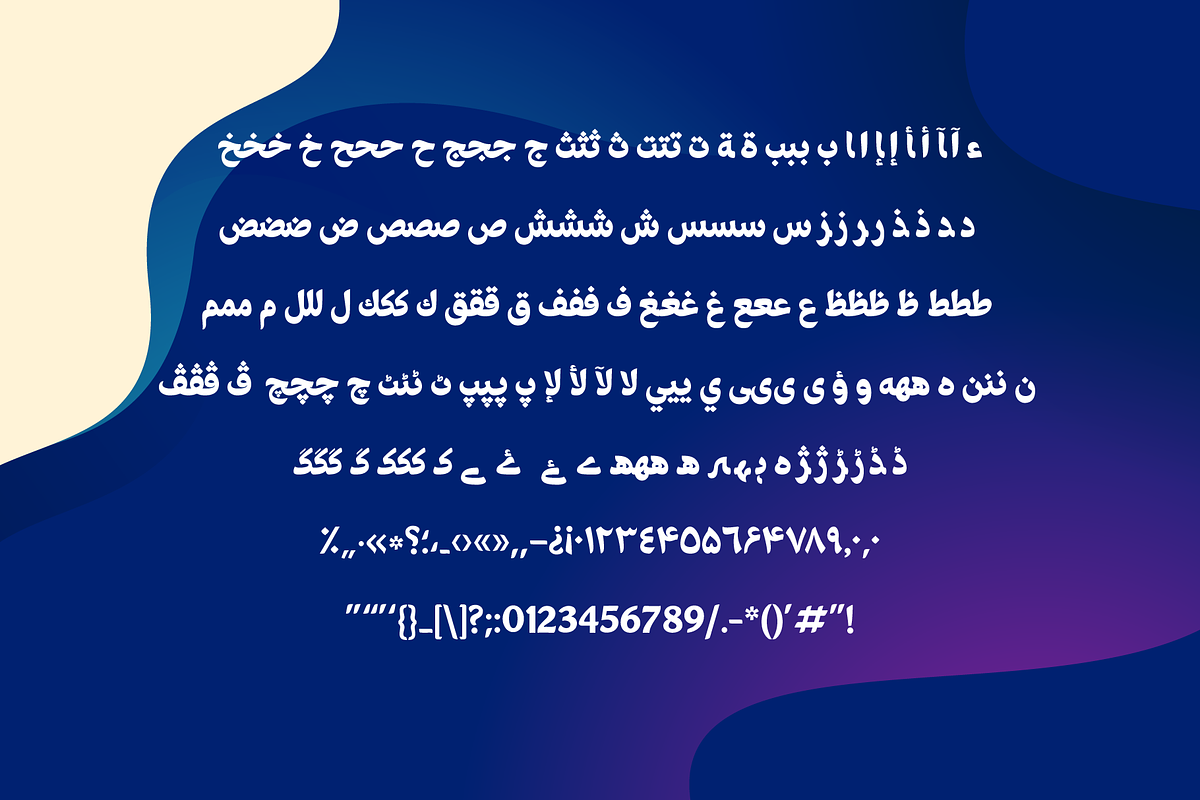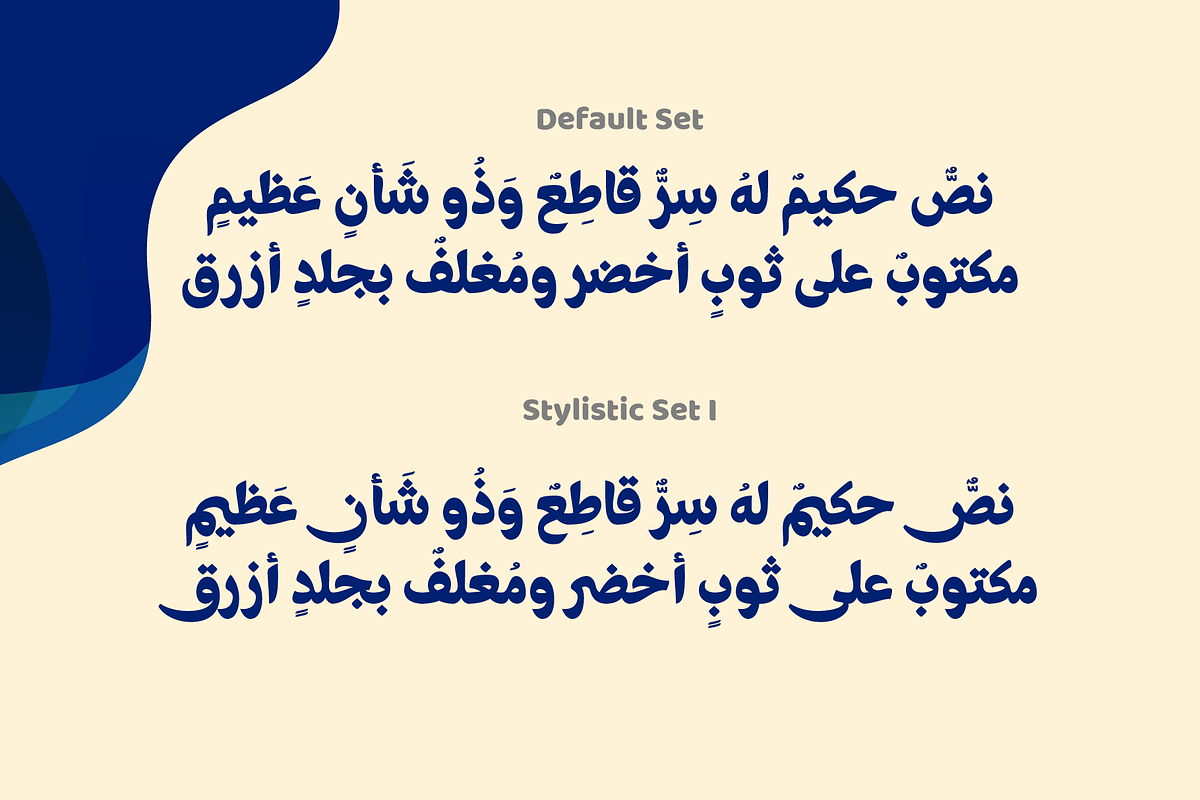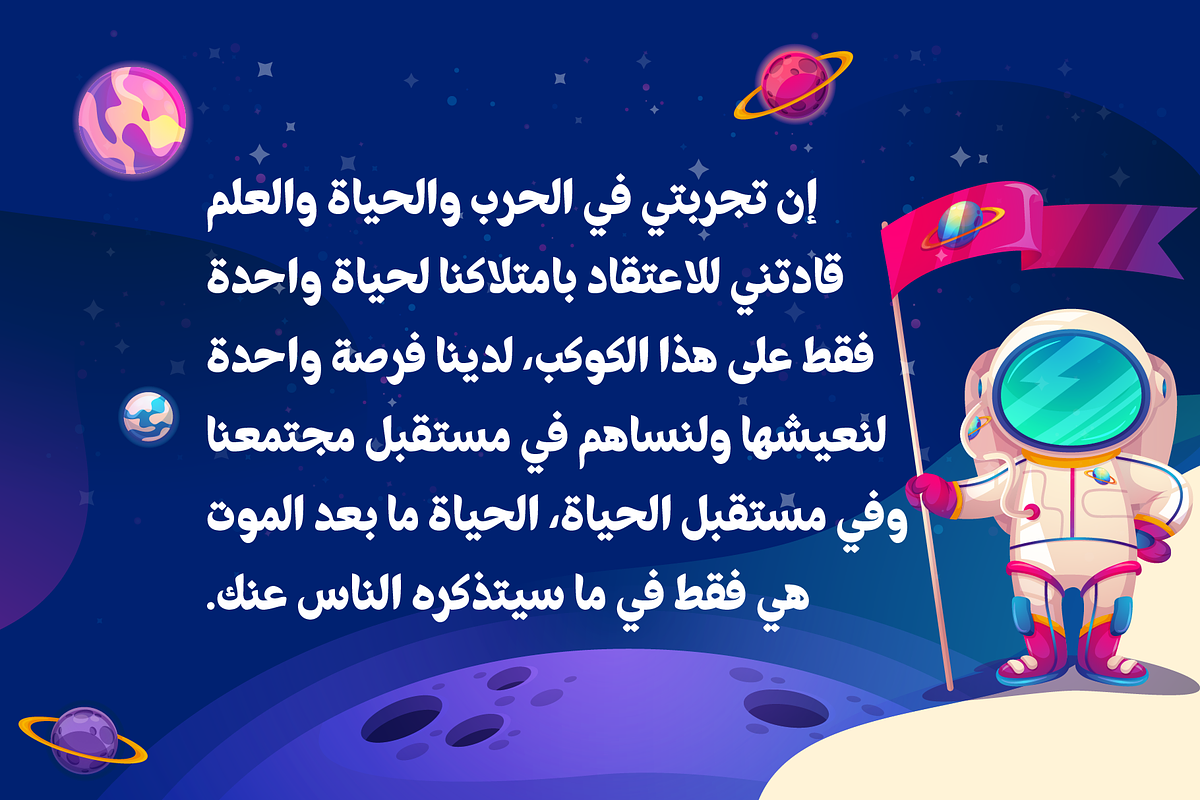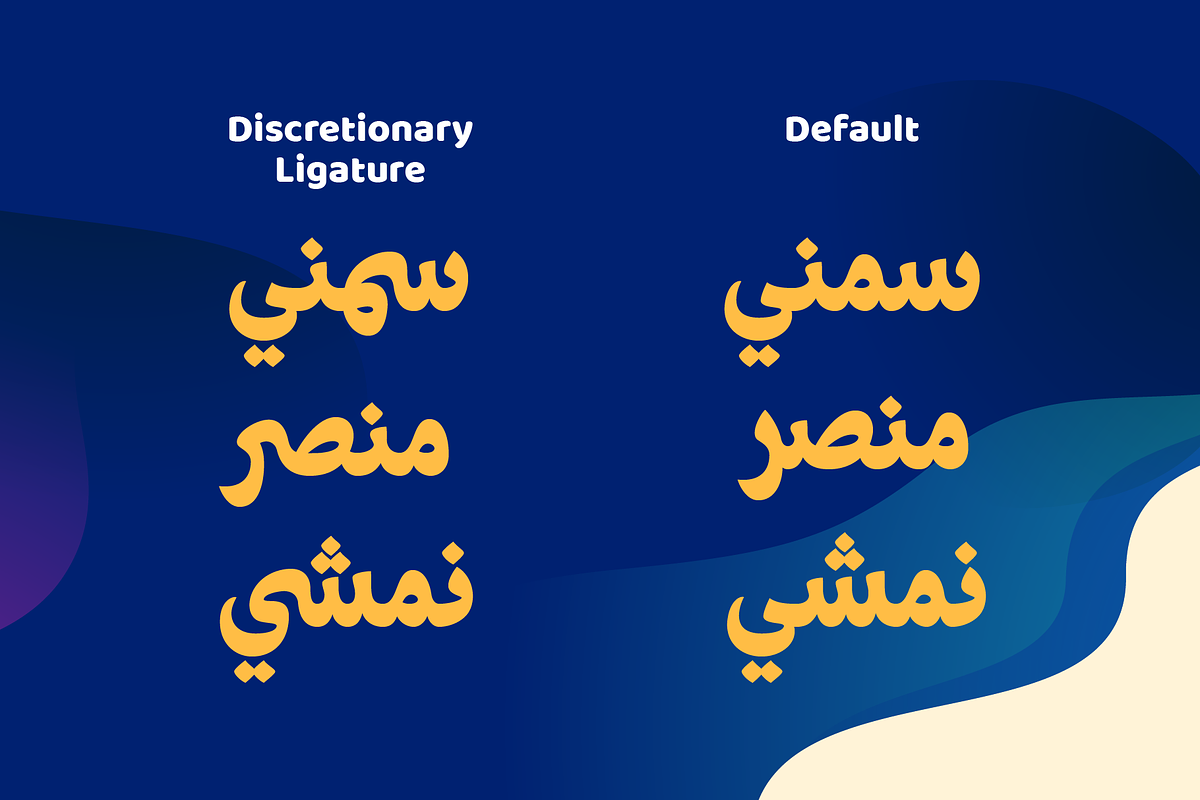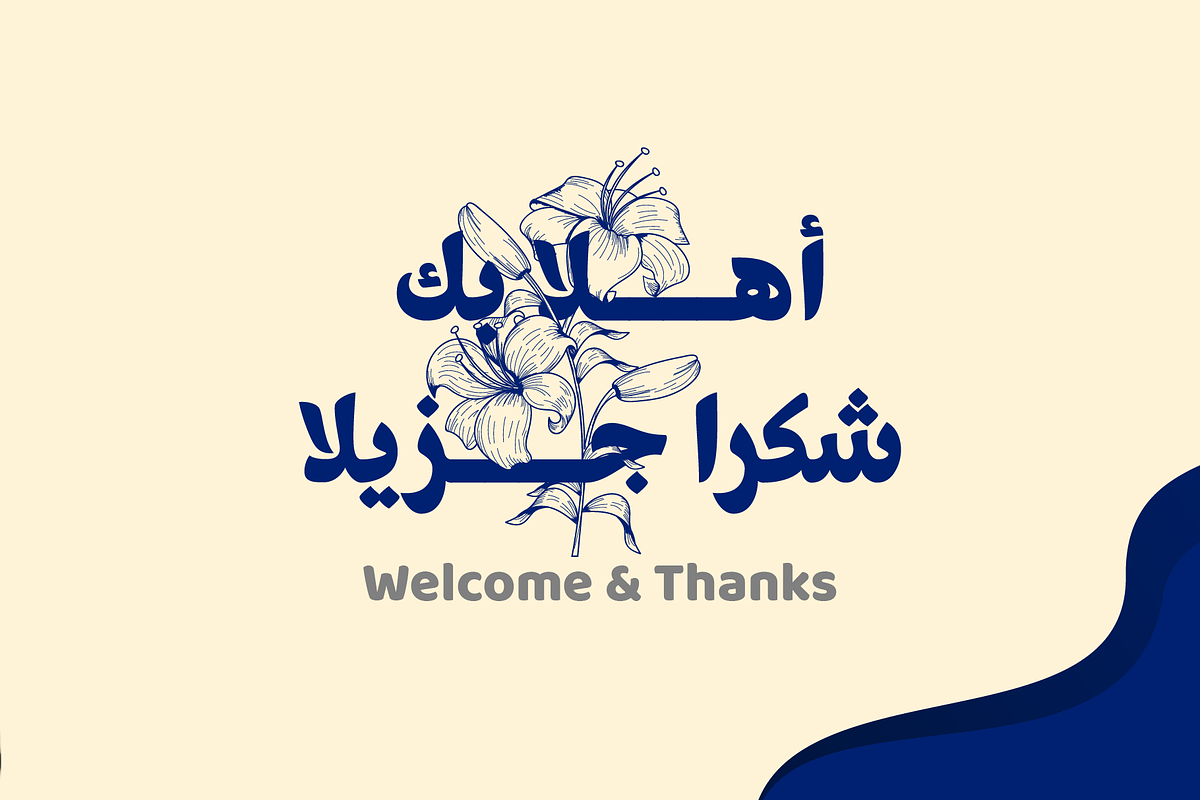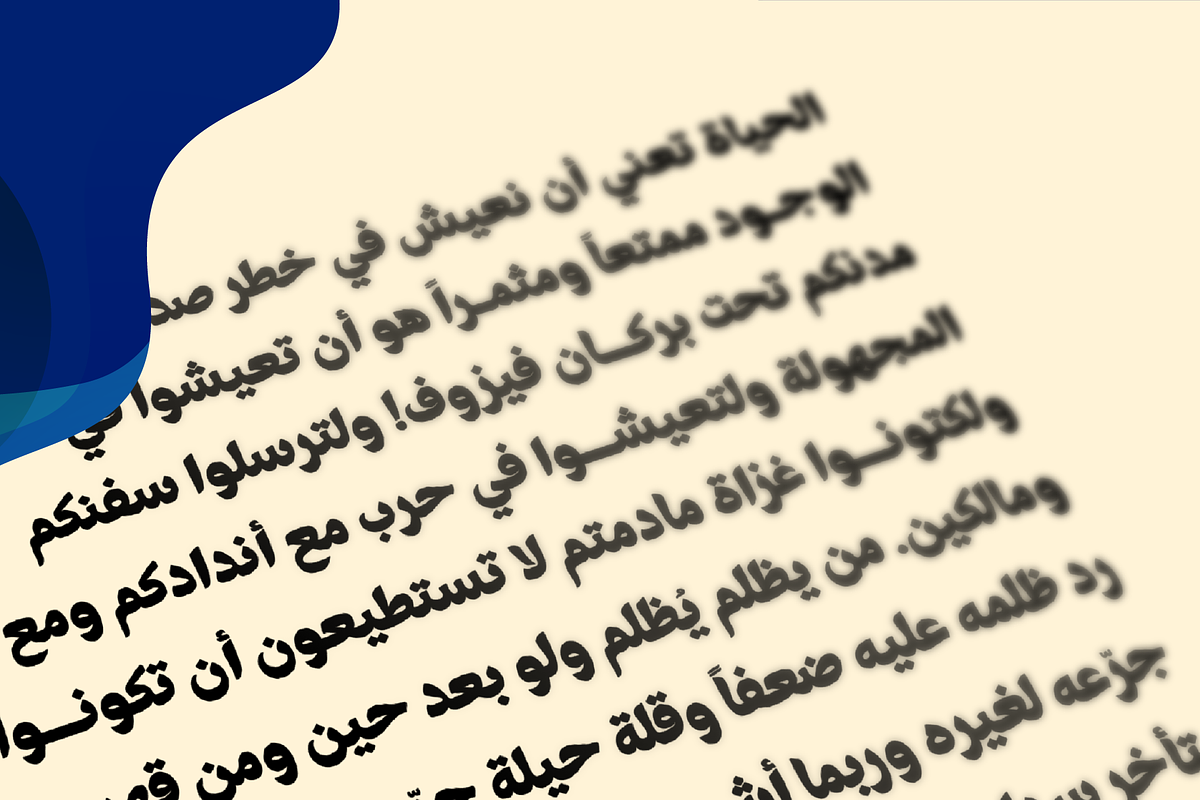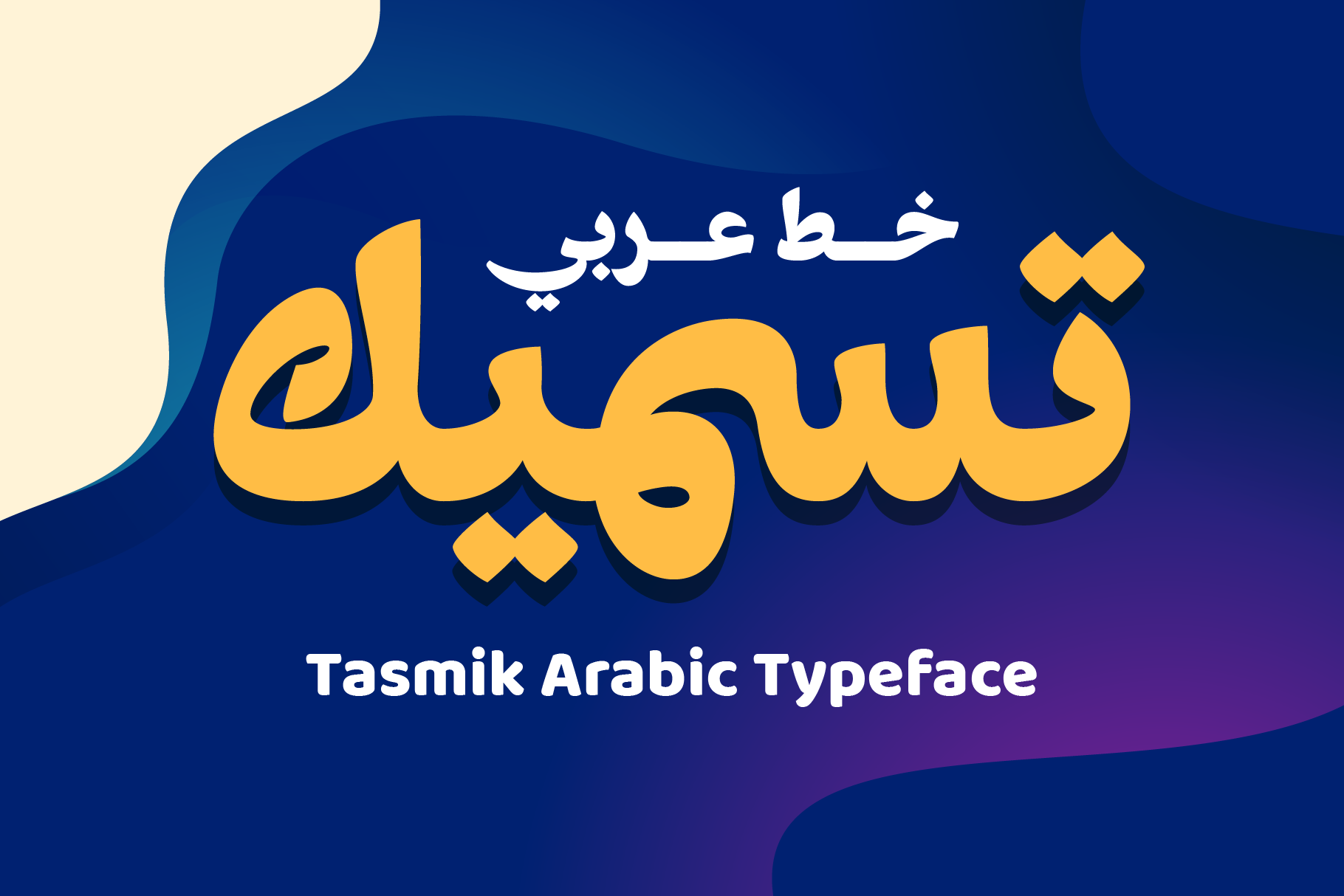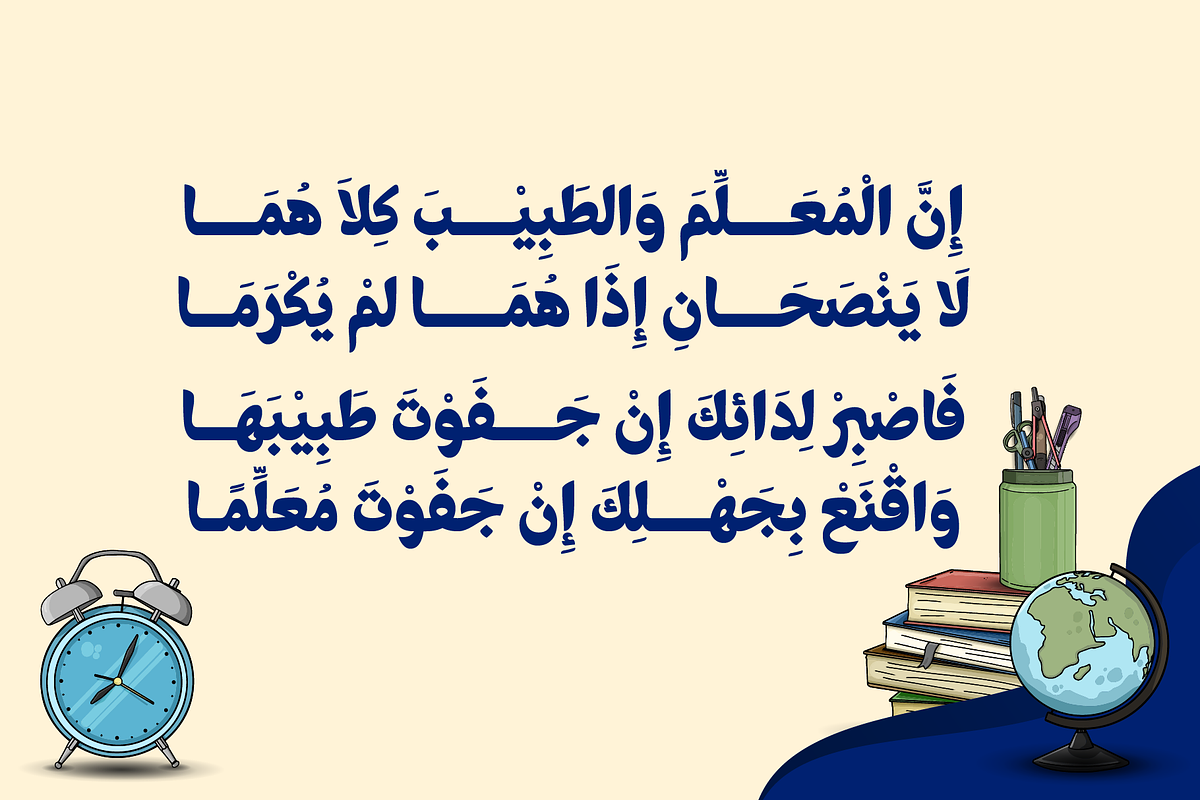
Tasmik - Arabic Font
Tasmik literally means thickening, this font is thick like extrabold in wight, impressed firm but flexible, suitable for display text and the center of interest.